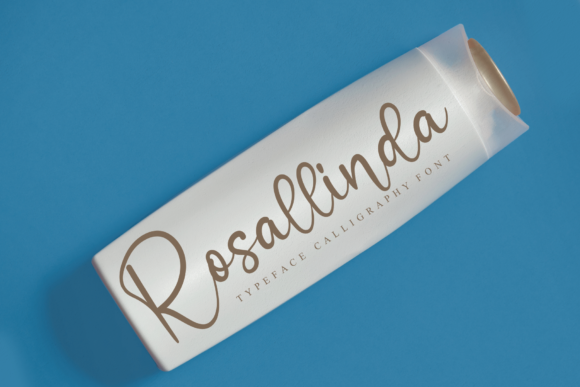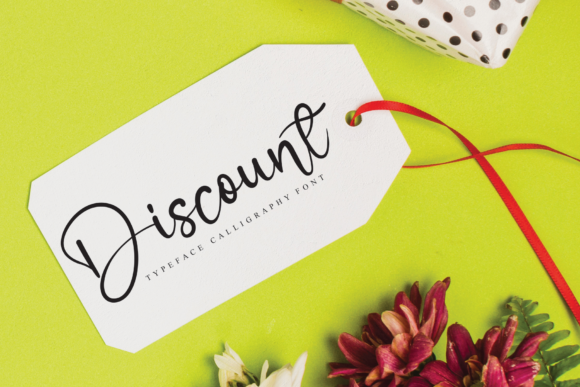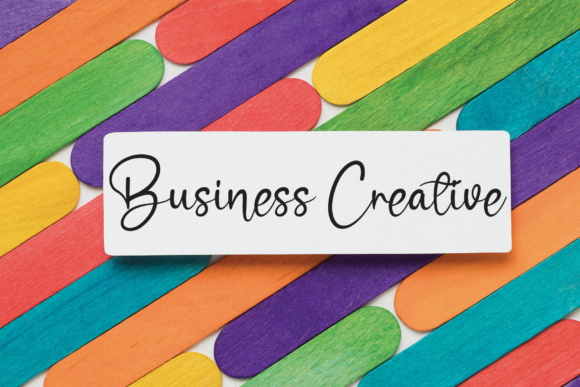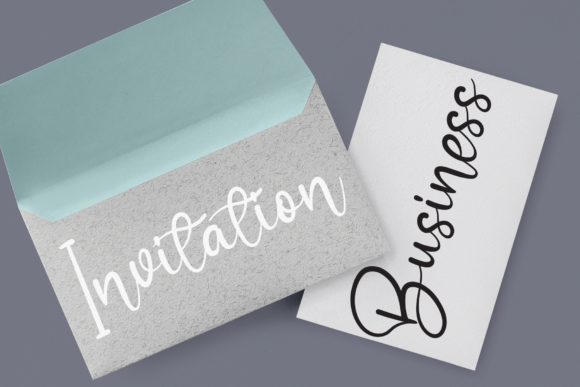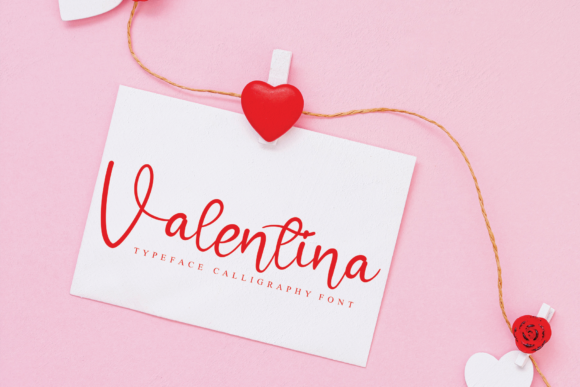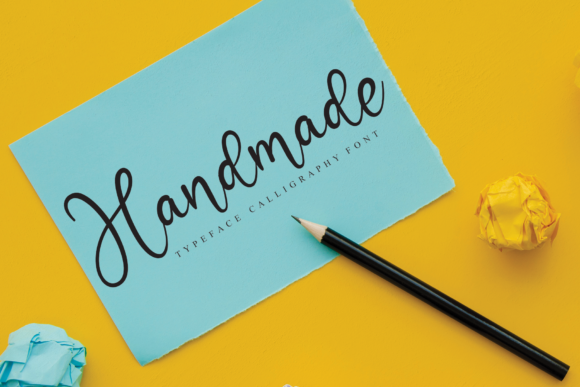
Introducing Flower Christmas Font: The Perfect Addition to Your Holiday Designs
Are you looking for a font that captures the warmth and romance of the holiday season? Look no further than Flower Christmas Font, a beautiful, cursive handwritten font that’s perfect for adding a touch of elegance to your holiday-themed greeting cards, crafting projects, and more.
What is Flower Christmas Font?
Flower Christmas Font is a warm, romantic, and cursive handwritten font that’s specifically designed to evoke the feeling of the holiday season. Its flowing lines and delicate curves make it perfect for creating beautiful, eye-catching designs that are sure to impress. Whether you’re a designer, crafter, or DIY enthusiast, Flower Christmas Font is the perfect addition to your font collection.
Characteristics of Flower Christmas Font
So, what makes Flower Christmas Font so special? Here are just a few of its key characteristics:
- Warm and Romantic: Flower Christmas Font has a warm, inviting feel that’s perfect for creating holiday designs that are both cozy and elegant.
- Cursive Handwritten: The font’s cursive, handwritten style gives it a personal, homemade feel that’s perfect for adding a touch of whimsy to your designs.
- Perfect for Holiday Designs: Whether you’re creating greeting cards, invitations, or other holiday-themed designs, Flower Christmas Font is the perfect choice.
Uses for Flower Christmas Font
So, how can you use Flower Christmas Font in your designs? Here are just a few ideas to get you started:
- Holiday Greeting Cards: Create beautiful, one-of-a-kind greeting cards for friends and family using Flower Christmas Font.
- Crafting Projects: Add a touch of elegance to your crafting projects, such as scrapbooking, journaling, and more, with Flower Christmas Font.
- Invitations: Create stunning holiday invitations for parties, events, and more using Flower Christmas Font.
- Social Media Graphics: Add a touch of holiday cheer to your social media graphics, such as Facebook posts, Instagram stories, and more, with Flower Christmas Font.
Tips for Using Flower Christmas Font
Here are a few tips for getting the most out of Flower Christmas Font:
- Pair with Other Fonts: Experiment with pairing Flower Christmas Font with other fonts to create unique and interesting combinations.
- Use in Combination with Images: Use Flower Christmas Font in combination with holiday-themed images, such as snowflakes, holly, and more, to create stunning designs.
- Experiment with Colors: Try out different colors and color combinations to find the perfect look for your designs.
If you’re looking for a font that captures the warmth and romance of the holiday season, look no further than Flower Christmas Font. With its cursive, handwritten style and warm, inviting feel, it’s the perfect addition to your font collection. Whether you’re a designer, crafter, or DIY enthusiast, Flower Christmas Font is sure to become a favorite.